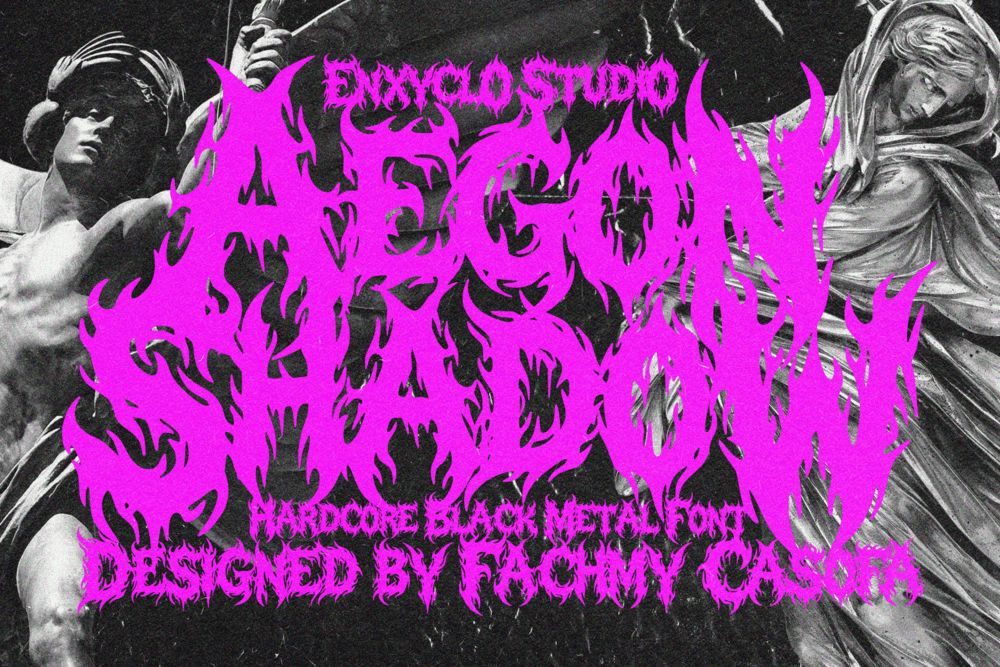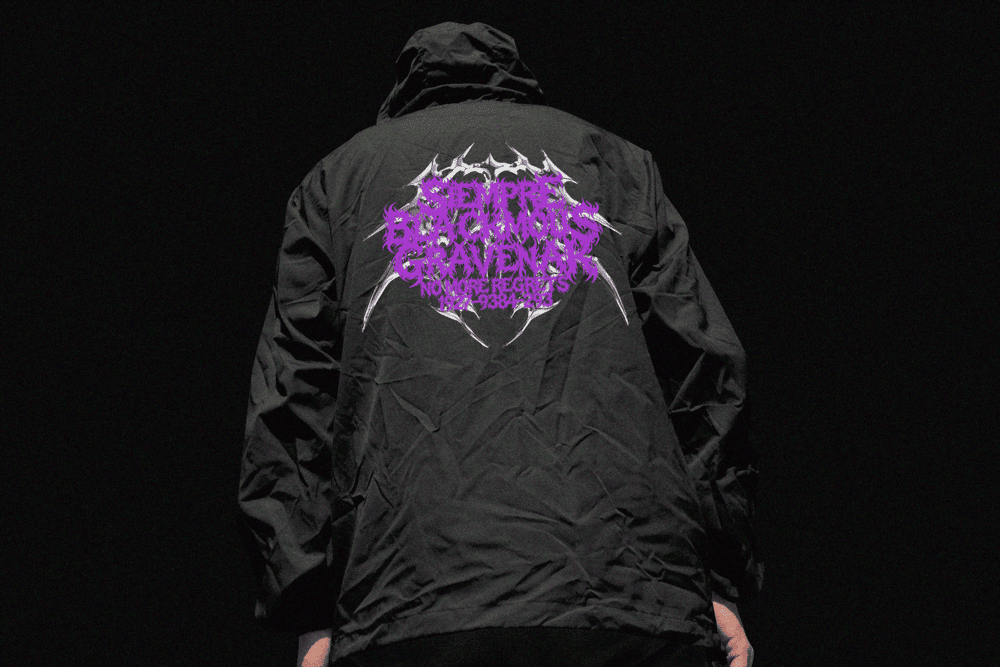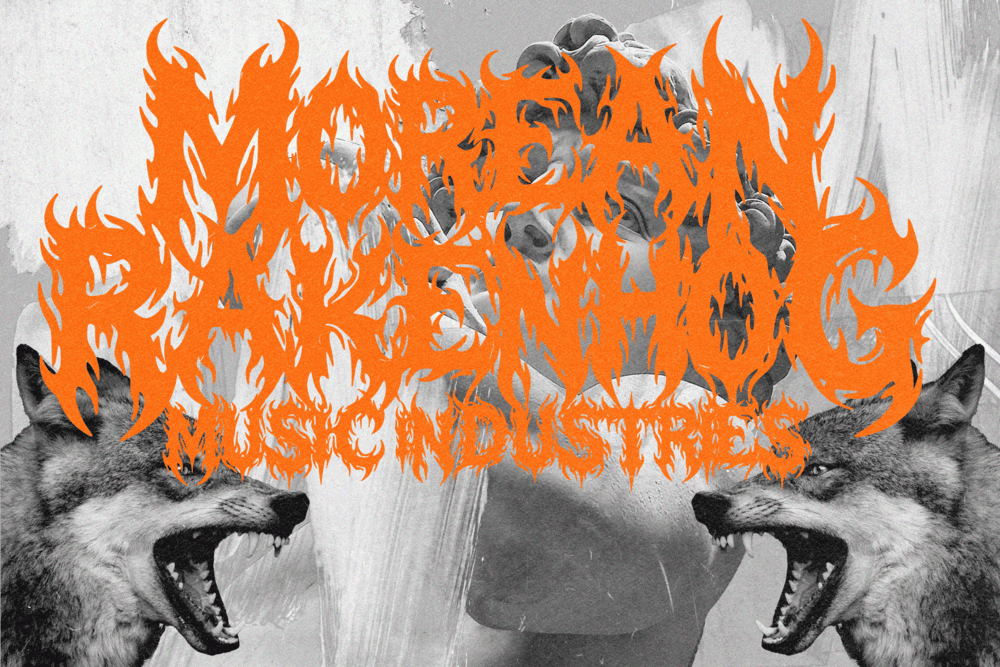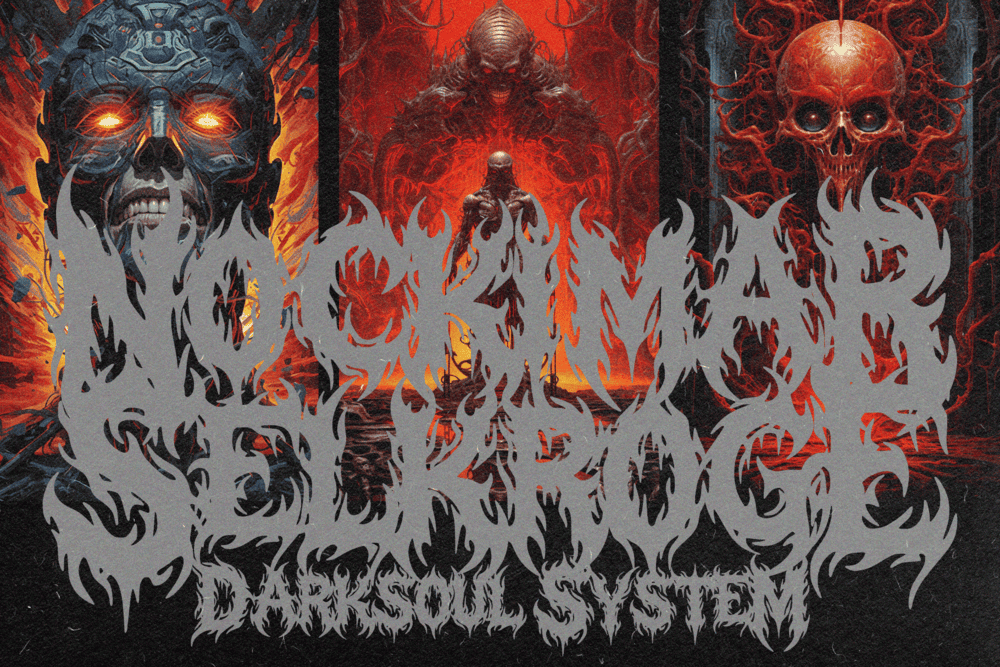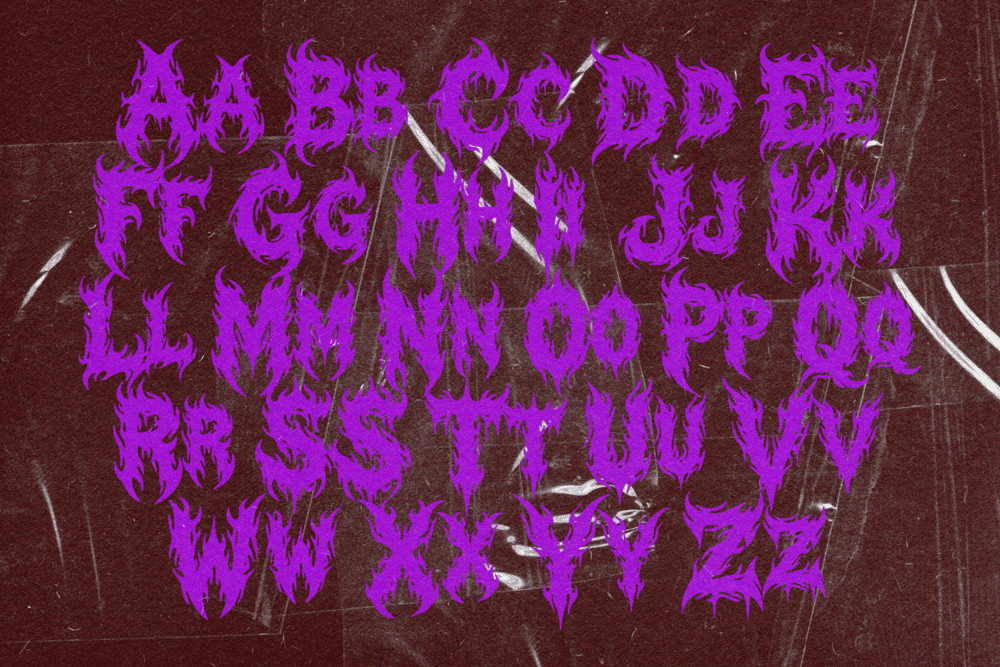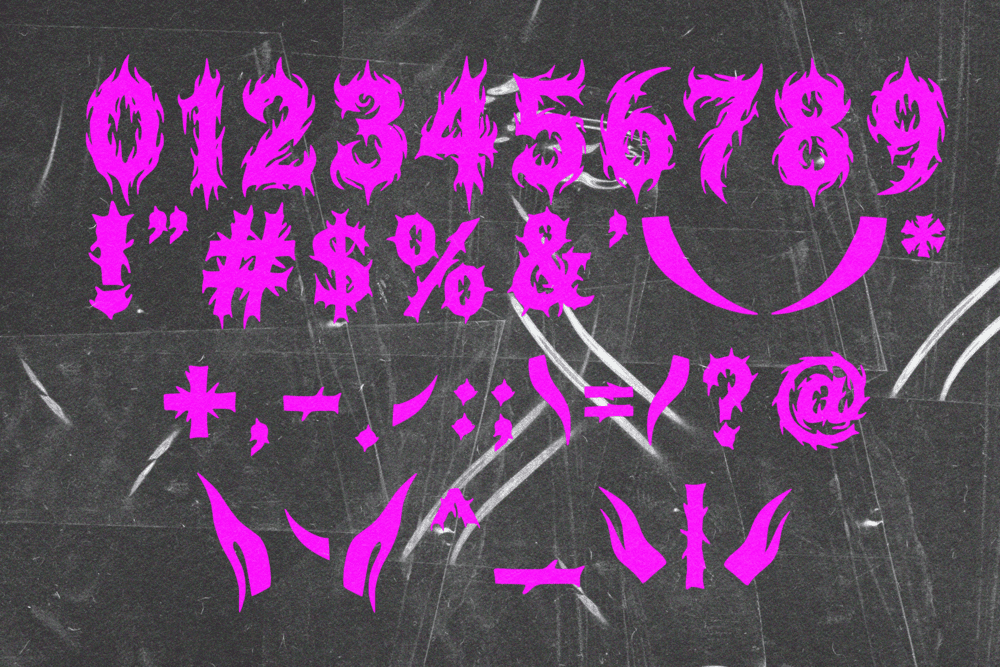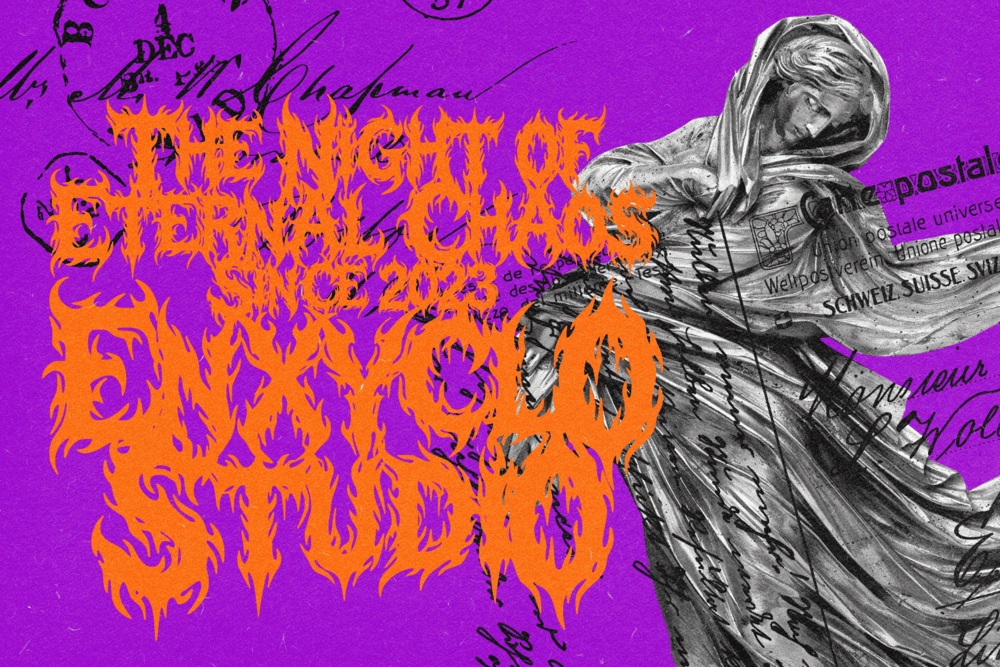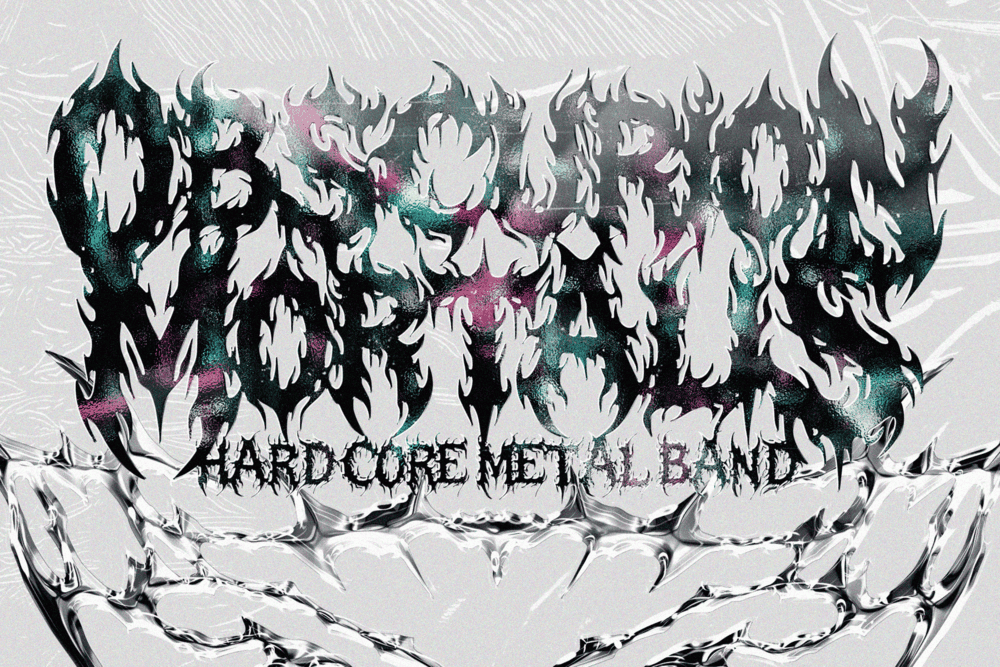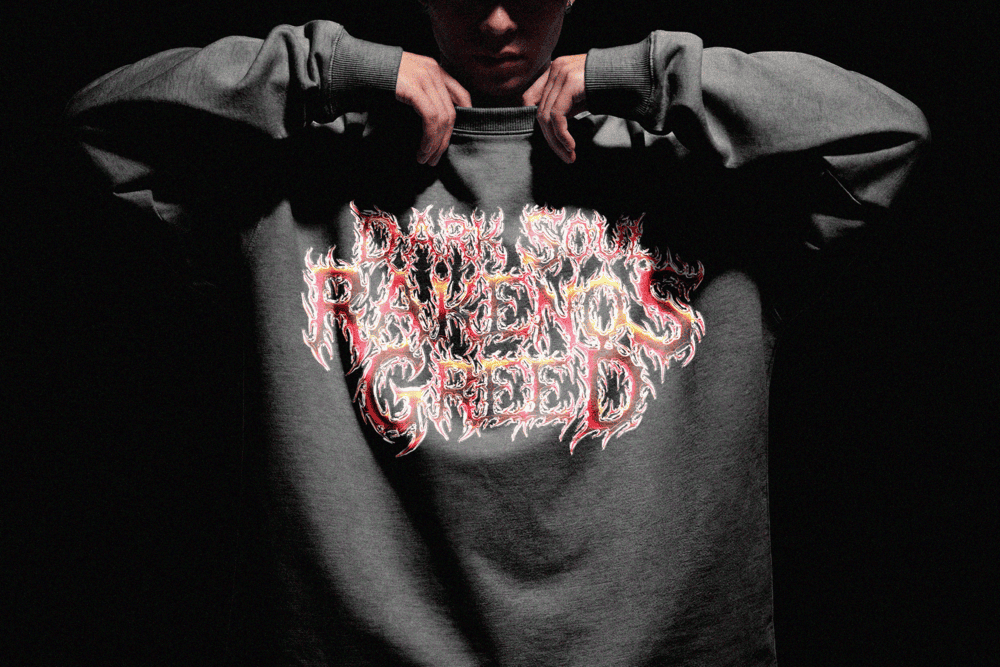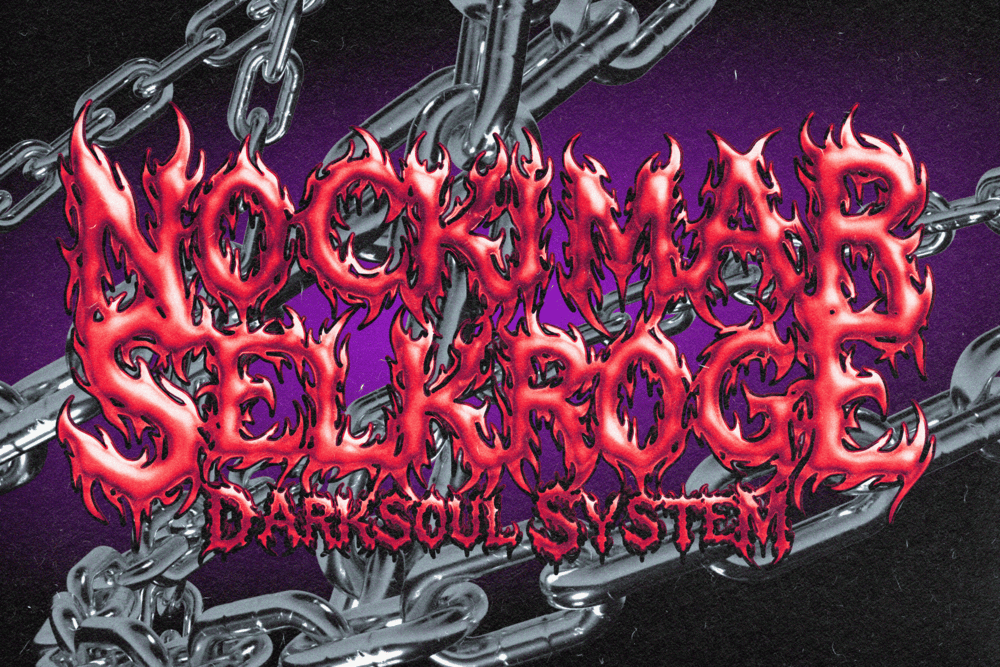
AEGON SHADOW is a modern timeless hardcore black metal font forged for creators who thrive in the darkest corners of extreme music and uncompromising visual expression. Inspired by the savage energy of black metal, death metal, heavy metal, hardcore, thrash metal, and underground rock, this typeface captures the spirit of rebellion through sharp, scratchy letterforms that feel brutal, aggressive, and unmistakably powerful. Every character carries the intensity of distorted guitars, relentless drums, and raw artistic freedom.
Built with rough textures, tribal-inspired strokes, and chaotic silhouettes, AEGON SHADOW embodies the visual language of infernal aesthetics and extreme culture. Its jagged forms evoke the atmosphere of abandoned cathedrals, underground venues, and dark forests where metal legends are born. The font balances handcrafted imperfection with bold structure, creating a striking typeface that feels authentic, fearless, and alive. Whether you're creating visuals for metalcore, hardcore, death metal, or black metal, its commanding presence leaves an unforgettable impression.
More than a font, AEGON SHADOW is a weapon for visual storytelling. It transforms ordinary typography into a symbol of chaos, strength, and identity—perfect for album covers, band logos, tattoo artwork, merchandise, concert posters, and underground branding. Designed for musicians, artists, and designers who reject the ordinary, this font delivers the brutal attitude and timeless character needed to dominate every composition.
Step beyond convention and embrace the darkness. AEGON SHADOW merges modern craftsmanship with the immortal spirit of black metal, creating a hardcore display font that speaks the language of extreme music, underground culture, and uncompromising creativity.